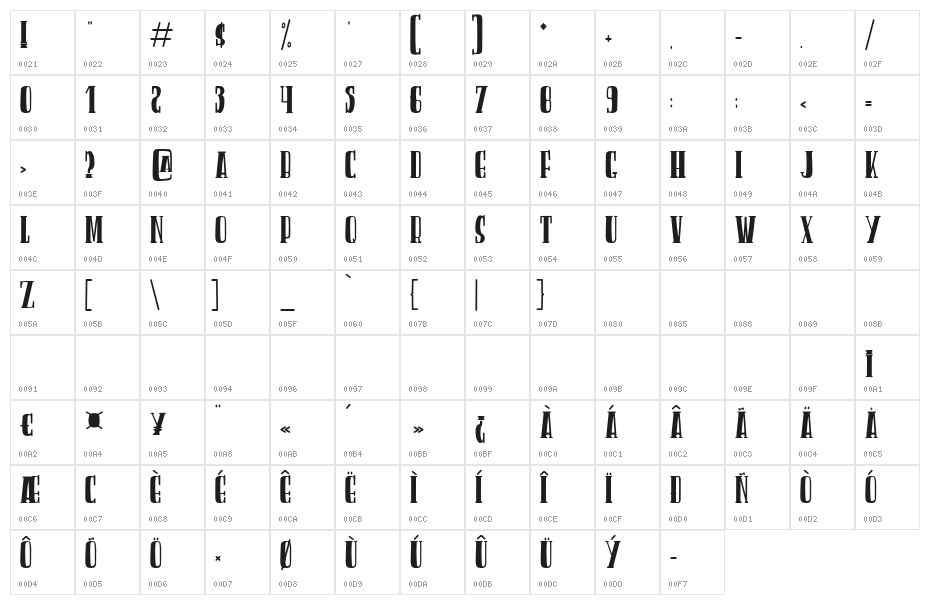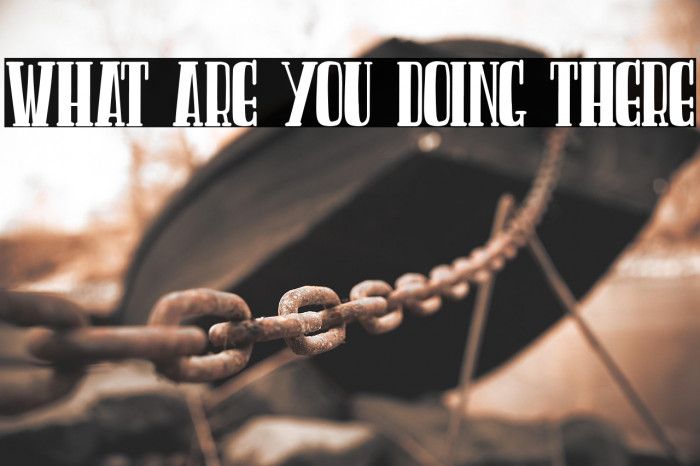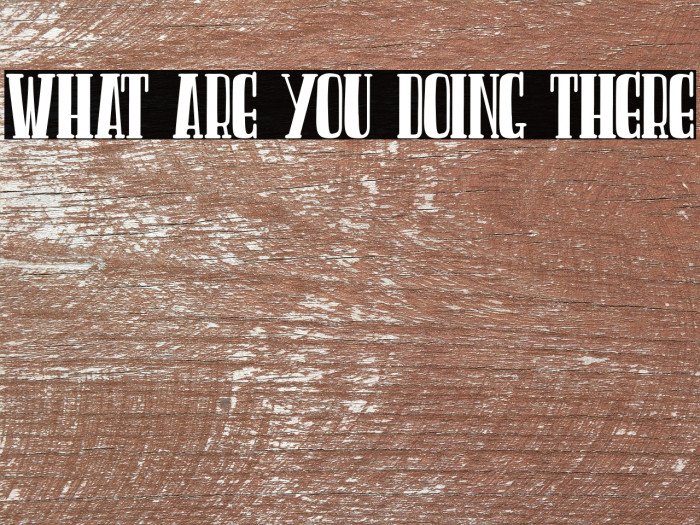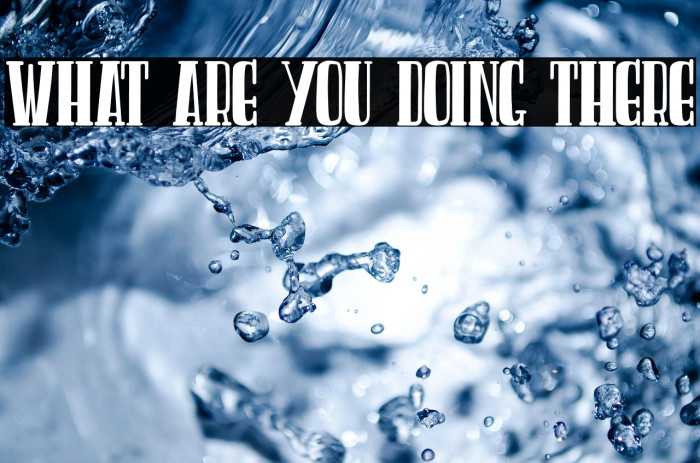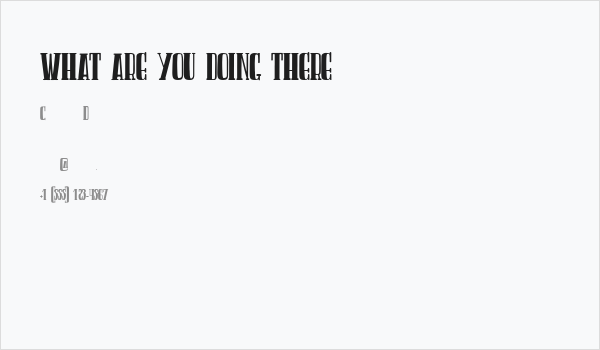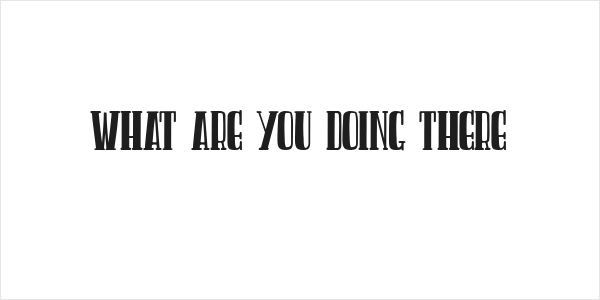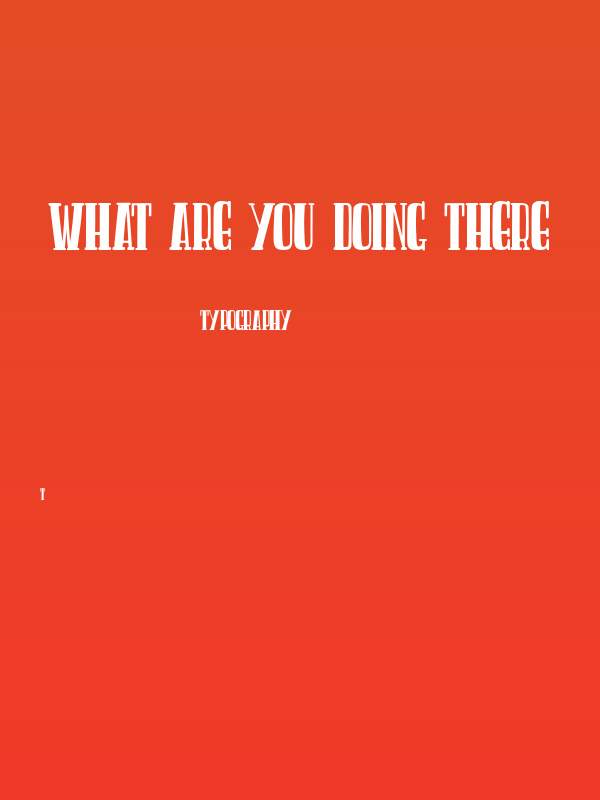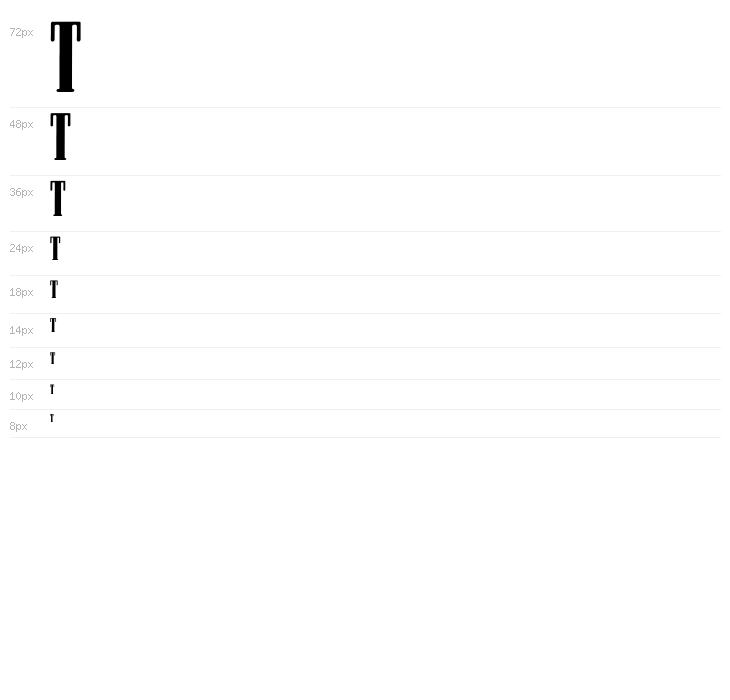
WHAT ARE YOU DOING THERE Font
WHAT ARE YOU DOING THERE Description
This font features a bold and dramatic style with high contrast between thick and thin strokes. The uppercase letters are tall and commanding, with a slight slant that adds a dynamic feel. The lowercase letters maintain the same boldness, ensuring consistency throughout. The numbers are equally bold, with a unique style that complements the letters. Special characters are designed with the same attention to detail, making them stand out. This font's overall appearance is reminiscent of vintage poster typography, with a modern twist that makes it suitable for contemporary designs.